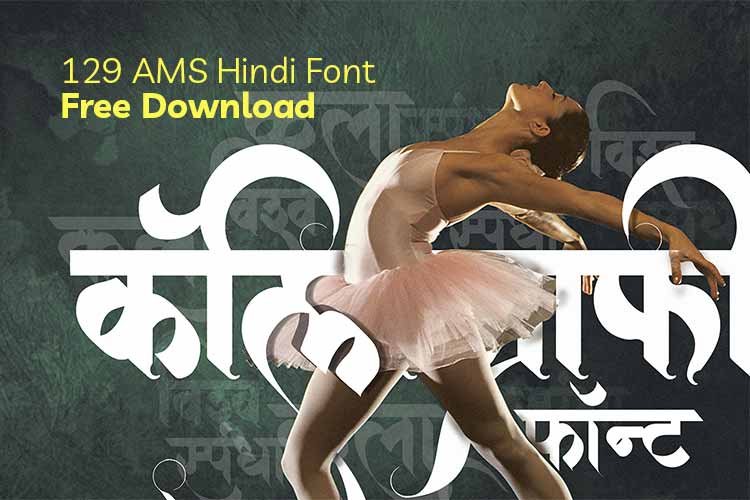
In the realm of design, fonts play a pivotal role in conveying messages, evoking emotions, and creating memorable visuals. AMS Hindi Fonts, with their distinct charm and versatility, emerge as a preferred choice for designers seeking to add a touch of elegance and character to their creations. What's more exciting? You can now access a collection of AMS Hindi Fonts for free download, unlocking a world of creative possibilities.
AMS Hindi Fonts encompass a variety of styles, each meticulously crafted to capture the essence of the Hindi script. With the option of 129 AMS Hindi Font free download, you have the tools to enhance your designs and create impactful content. From formal and elegant to bold and playful, these fonts cater to a spectrum of design preferences, allowing you to bring your vision to life.
Featured AMS Hindi Fonts Collection:
Distinctive traditional Hindi font perfect for cultural and festive designs
Traditional
Elegant calligraphy font with spiritual essence for meaningful content
Calligraphy
Graceful letterforms with artistic flair for creative projects
Artistic
Divine inspiration in typography perfect for religious and cultural content
Religious
Fresh and vibrant design capturing the essence of monsoon season
Modern
Blessing-inspired typography with elegant traditional aesthetics
Traditional
Sophisticated letterforms with classical Hindi typography appeal
Classical
Bold and impactful design perfect for headers and statements
Bold
Lightweight elegant typography ideal for modern and clean designs
Modern
Beautiful and harmonious letterforms expressing aesthetic perfection
Beautiful
Flowing script inspired by river-like graceful movement
Script
Sacred verse-inspired typography perfect for spiritual and devotional content
SpiritualMore About AMS Fonts
AMS Hindi Fonts transcend conventional letterforms; they are a form of artistic expression. Whether you're designing social media graphics, posters, presentations, or any other creative content, AMS Font Hindi download opens the doors to a world of creative exploration. The ability to integrate these fonts seamlessly into your designs empowers you to craft visuals that resonate with authenticity and style.
Artistic Expression
Each font is crafted as a form of art, bringing unique character to your designs.
Social Media Ready
Perfect for creating engaging social media graphics that stand out.
Ideal for posters, presentations, and various creative content formats.
Authentic Style
Craft visuals that resonate with authenticity and cultural depth.